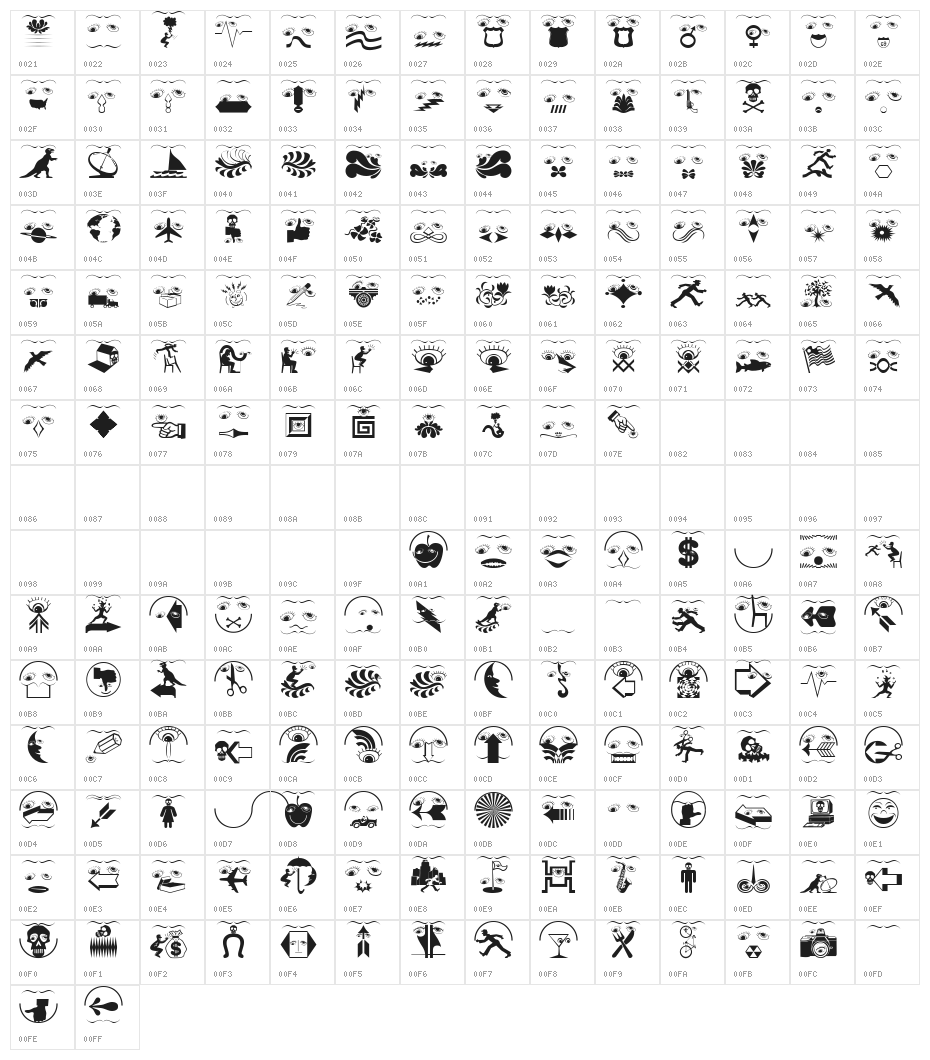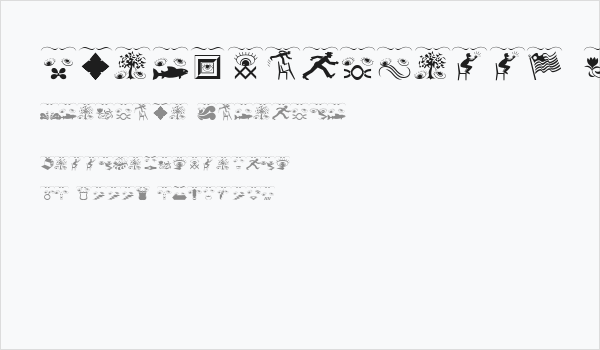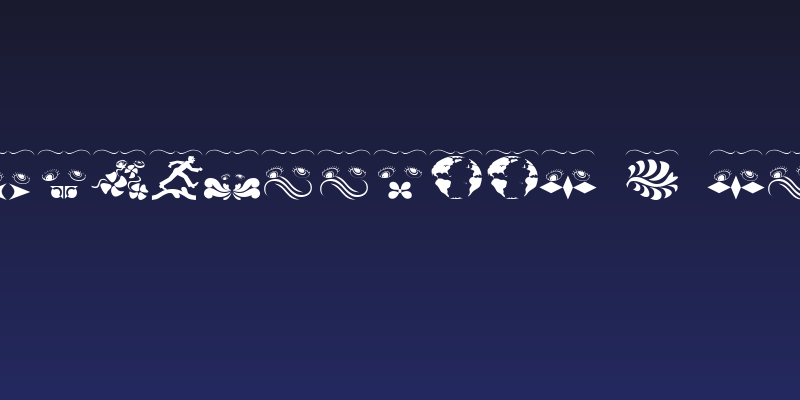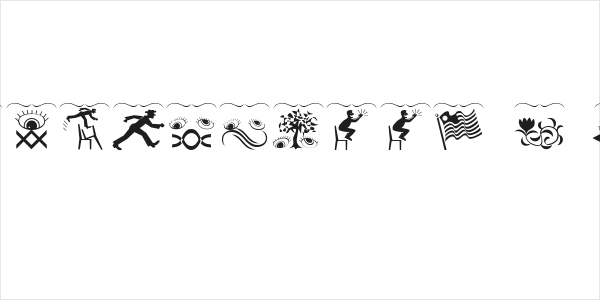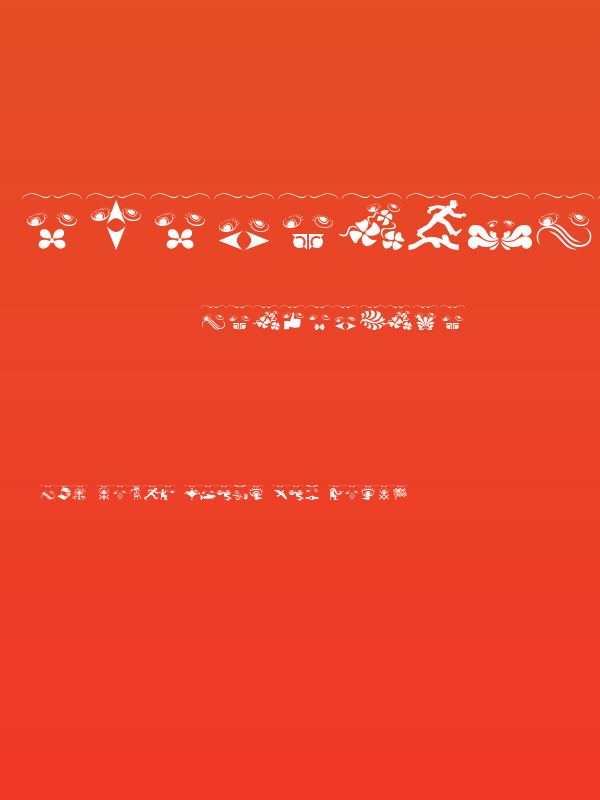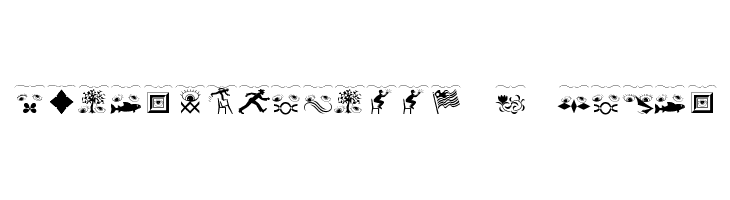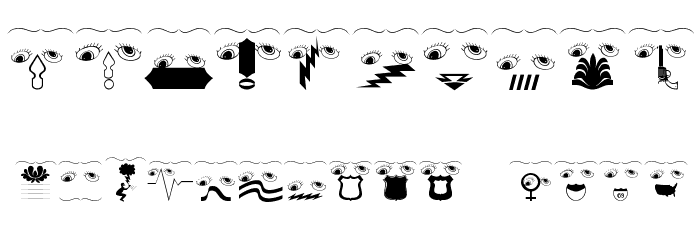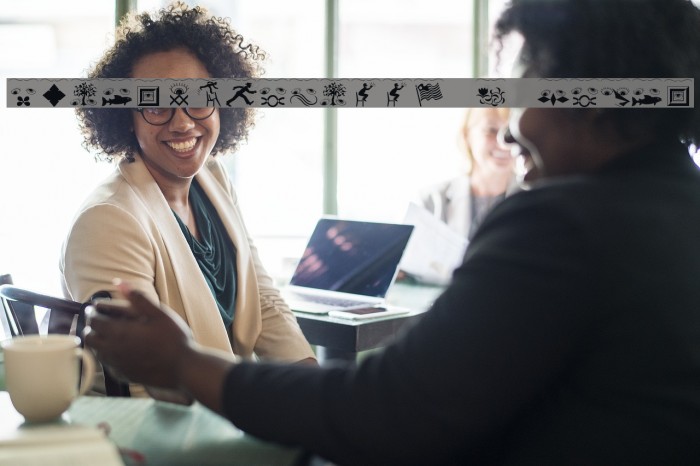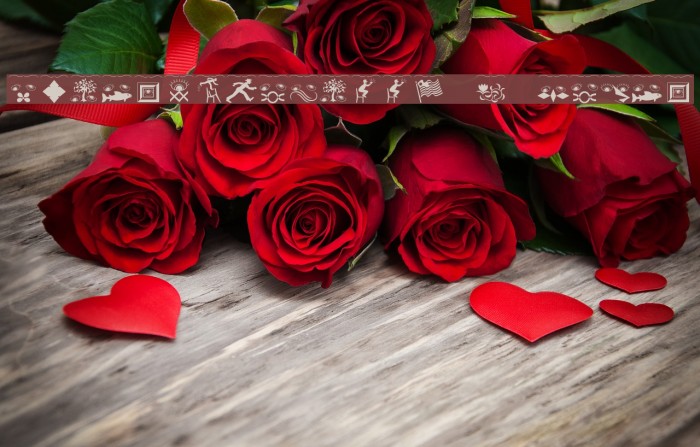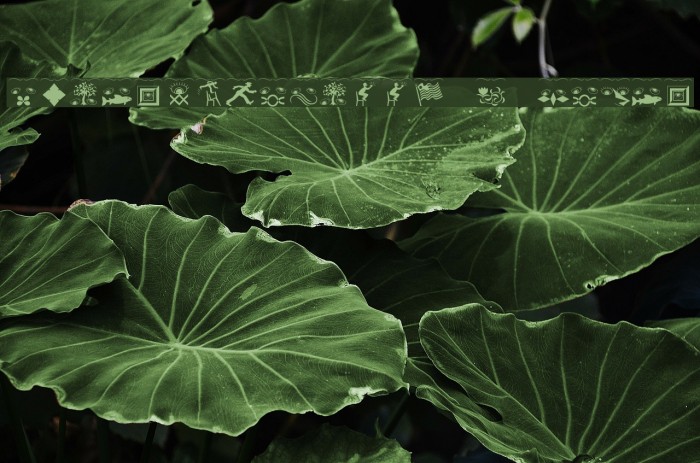
EverypictTells a Story Font
A highly decorative dingbat font composed of various pictograms and symbols, including eyes, people, animals, geometric shapes, and abstract motifs, arranged in a playful and illustrative style. The glyphs are bold, mostly solid black, and vary widely in complexity and subject matter, making each character unique and visually engaging.
| Overall Style | Decorative, Playful, Illustrative |
| Use Case | Decorative accents, visual storytelling, creative headings, graphic design elements |
| Proposed Projects | Ideal for creative projects, visual storytelling, scrapbooking, posters, invitations, and educational materials. |